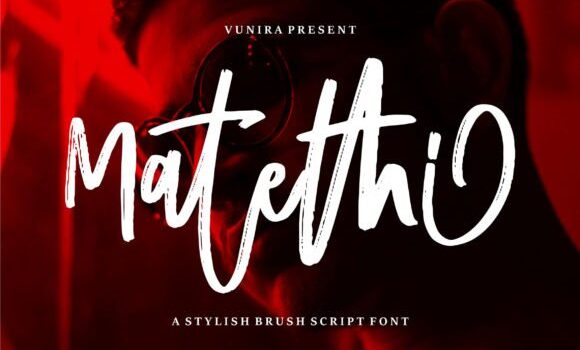
matethi
Matethi Font – Free Download Introduction to Matethi Font Matethi is a modern, whimsical and relaxed paint brushed script font. 📸 Preview Gallery 5 images 📌 Product Name Matethi Font 👤 Author Vunira 📂 Category Explore ⬇️ Download Matethi Font